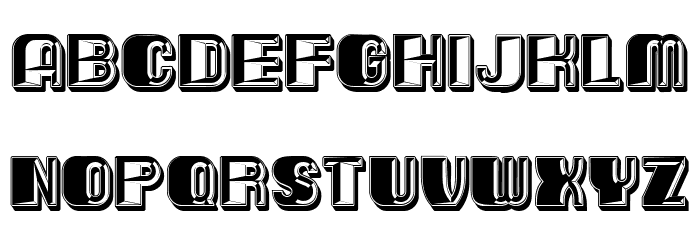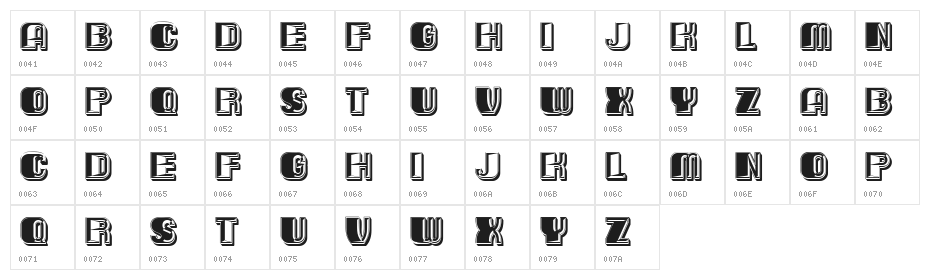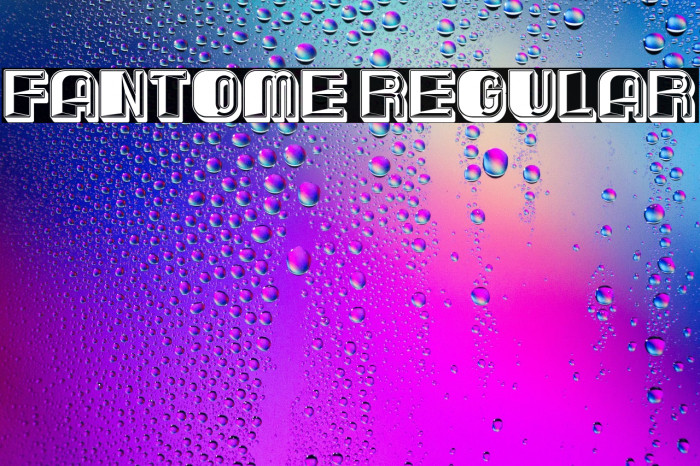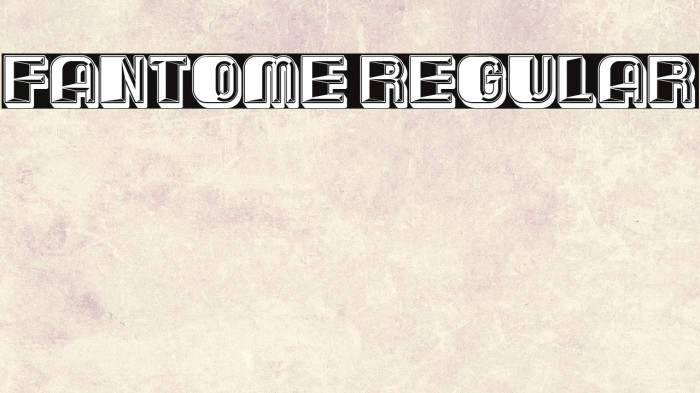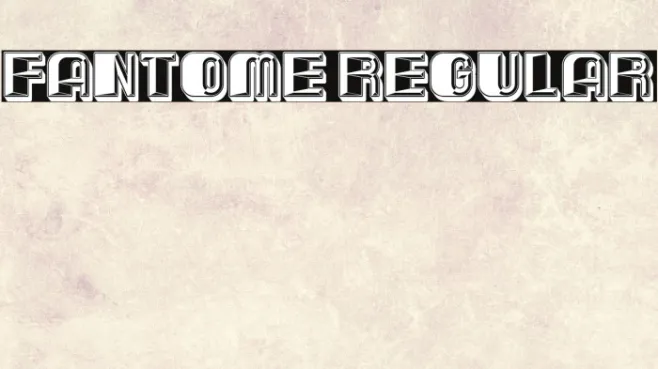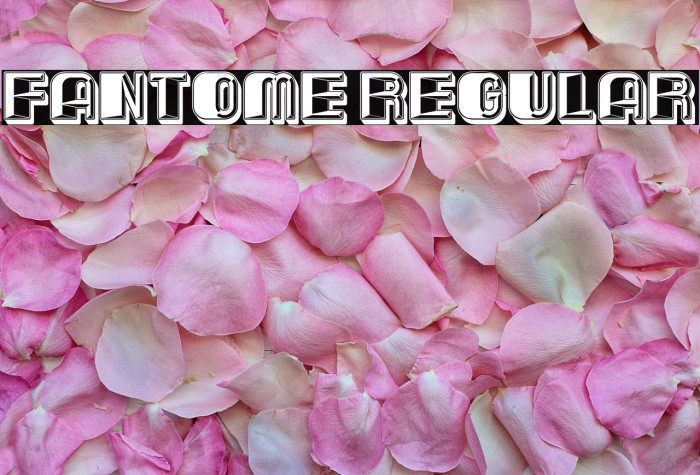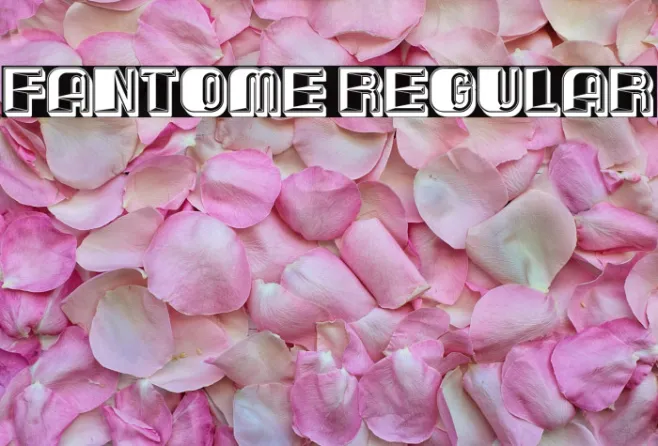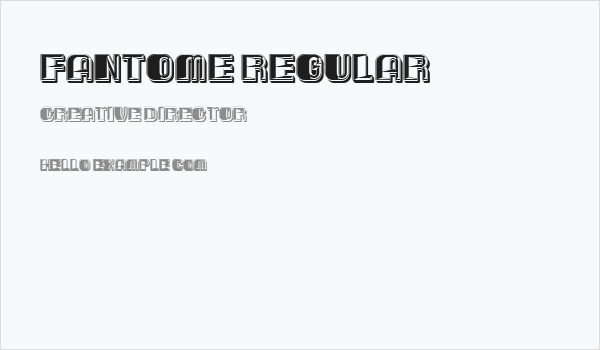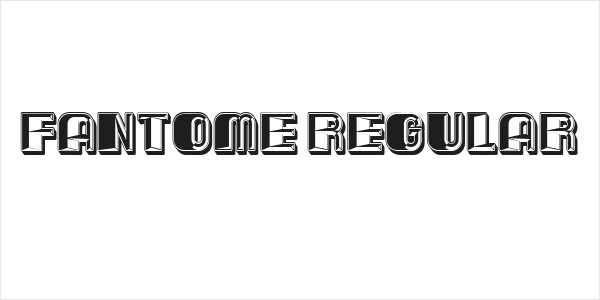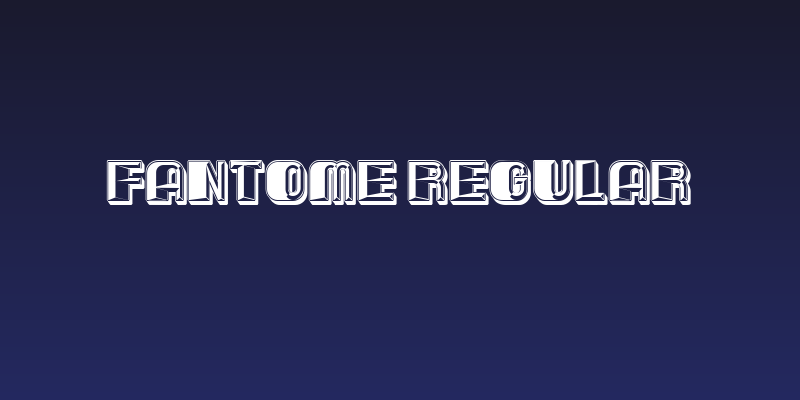
Fantome Regular Font
Fantome Regular Description
This font features a bold and striking 3D effect, with each character appearing as if it is carved out of a solid block. The letters are uppercase and have a strong presence, making them ideal for attention-grabbing headlines or titles. The shadowing effect adds depth and dimension, creating a sense of movement and energy. The overall design is modern and dynamic, with clean lines and a geometric structure. The font is versatile, suitable for various creative projects that require a bold statement.